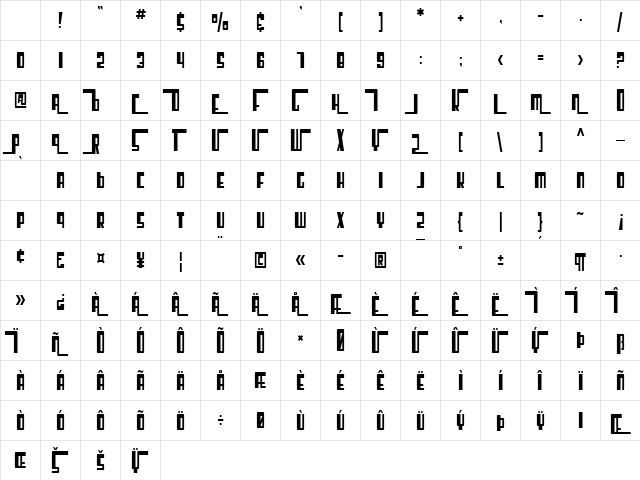
SF Cosmic Age Condensed Regular
SF Cosmic Age Condensed Family
Design Context for SF Cosmic Age Condensed
SF Cosmic Age Condensed is a composed and adaptable typeface that performs quietly and consistently across a wide range of design contexts. Its narrow stance lets it pack a punch even in space-constrained designs.